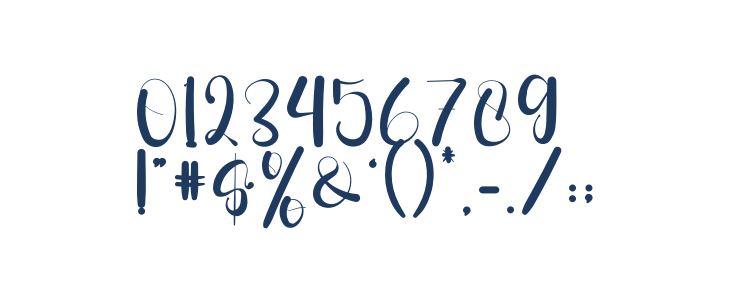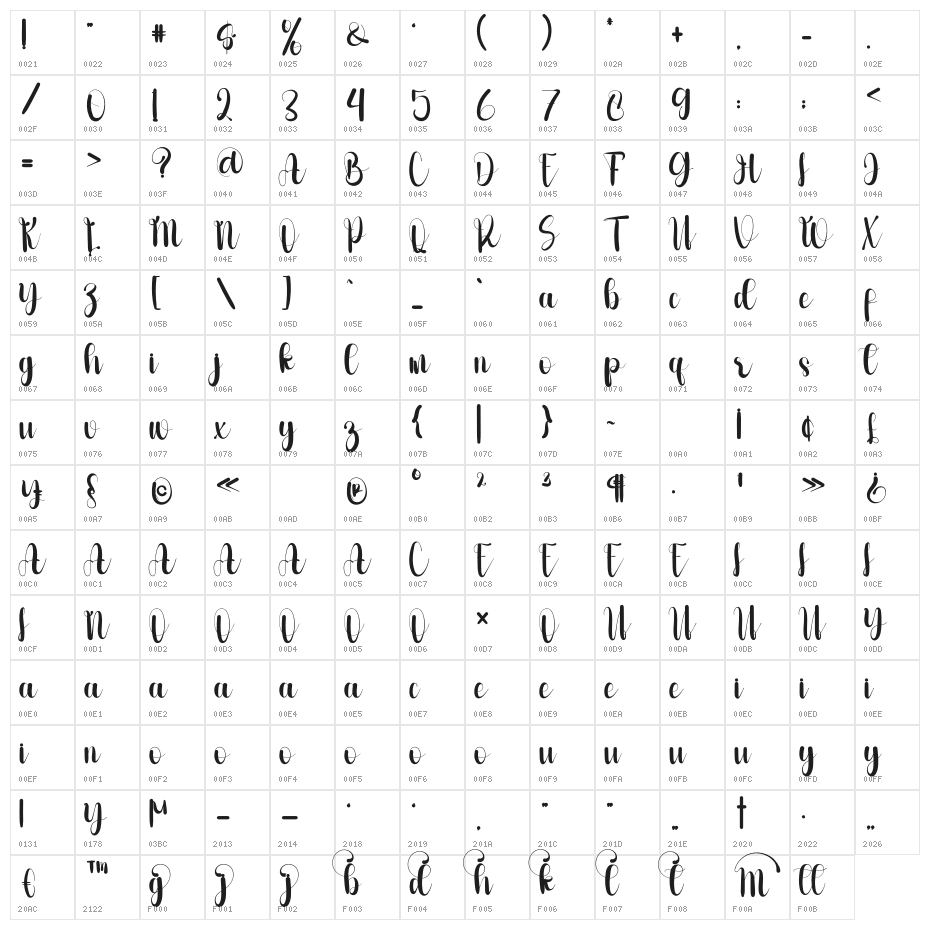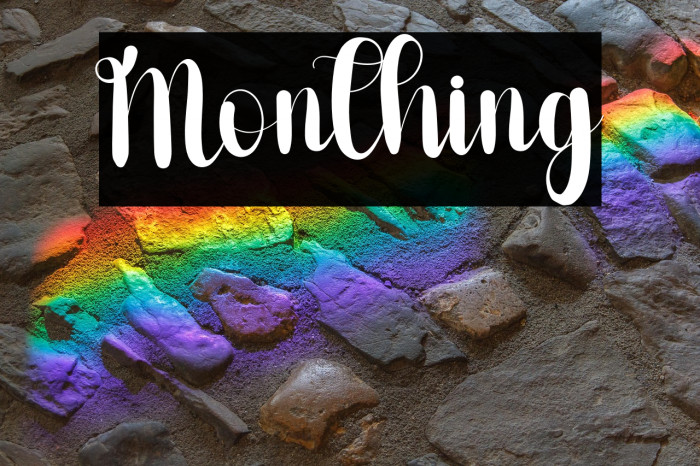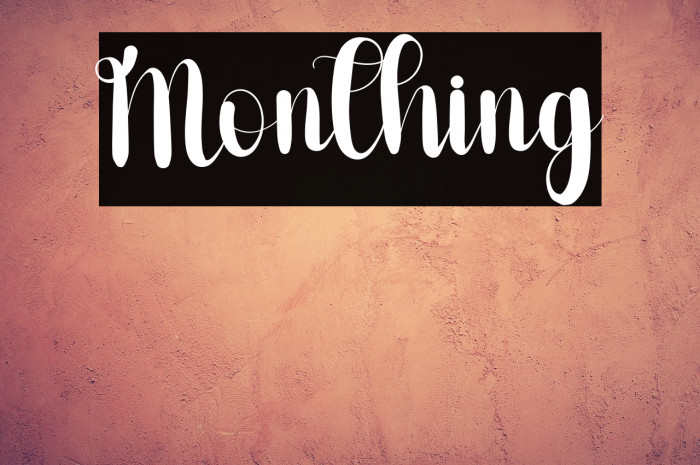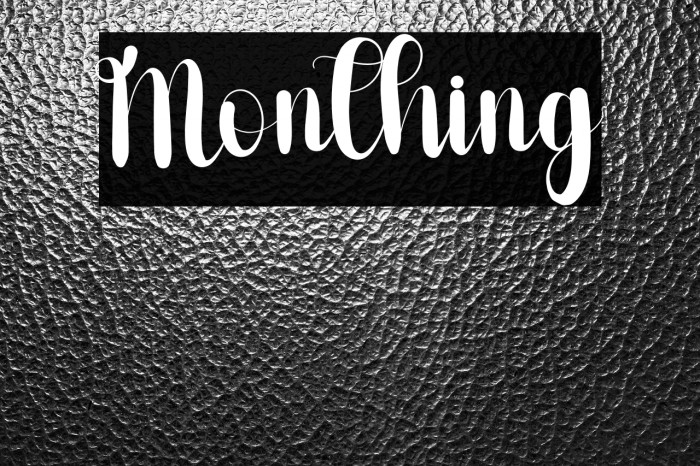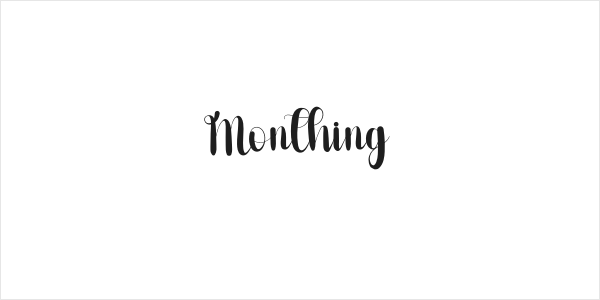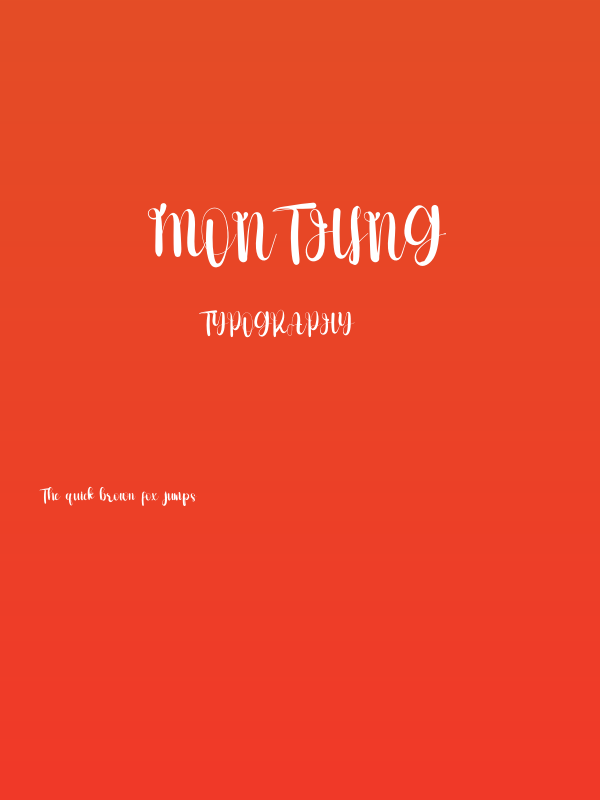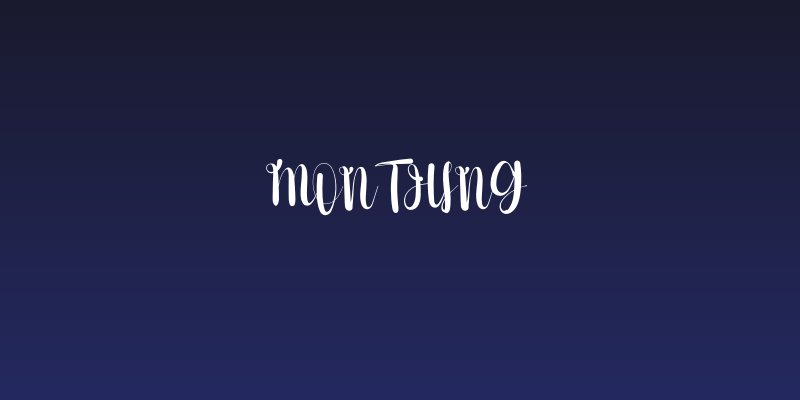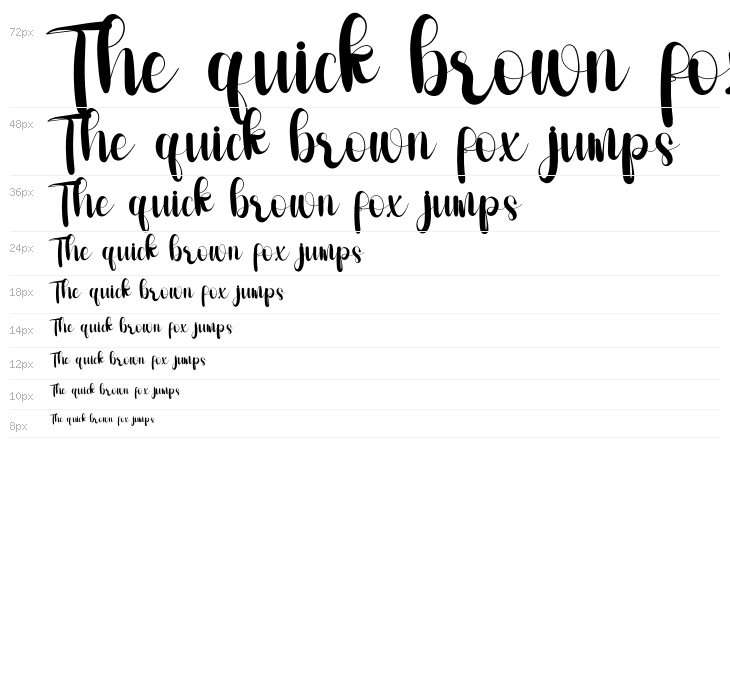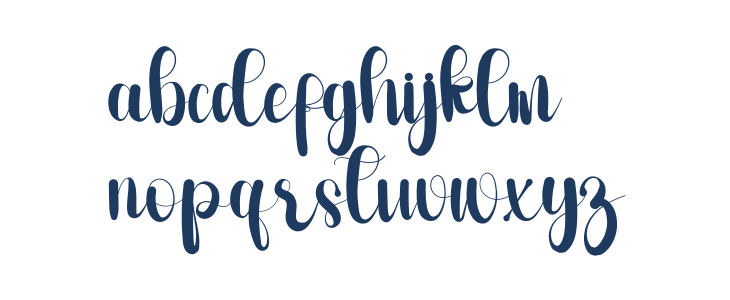
Monthing Font
Monthing Description
This font features a playful and artistic script style with a mix of thick and thin strokes, creating a dynamic and lively appearance. The uppercase letters are bold and expressive, while the lowercase letters maintain a consistent flow with elegant loops and curves. The numbers and special characters follow the same whimsical style, making the font suitable for creative and informal designs. The overall look is both modern and decorative, with a touch of elegance that adds personality to any project.
| Proposed Projects | Ideal for greeting cards, invitations, branding, and social media graphics. |